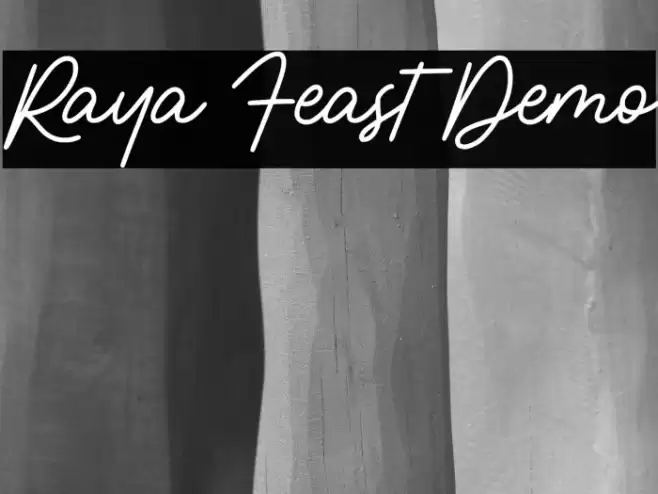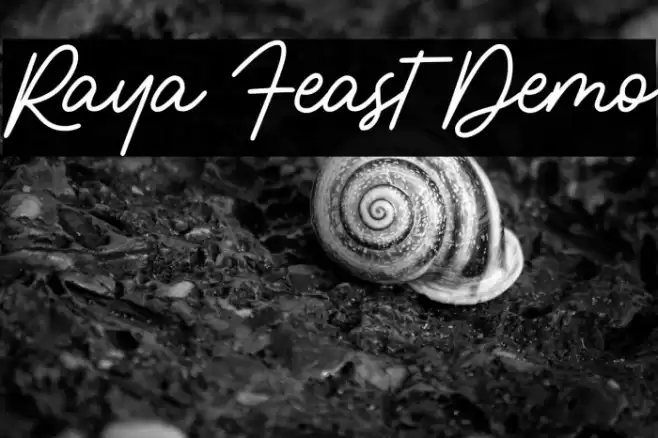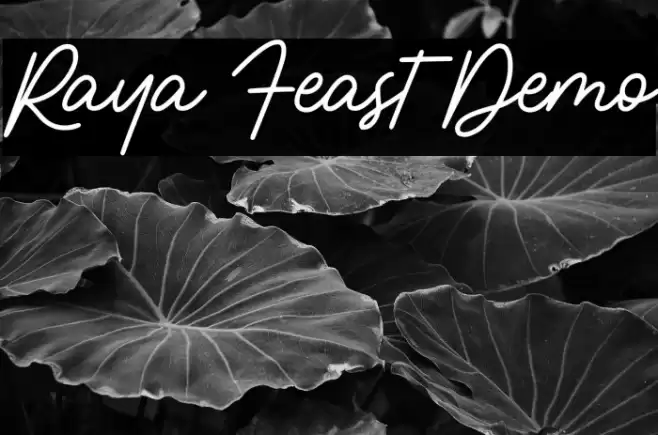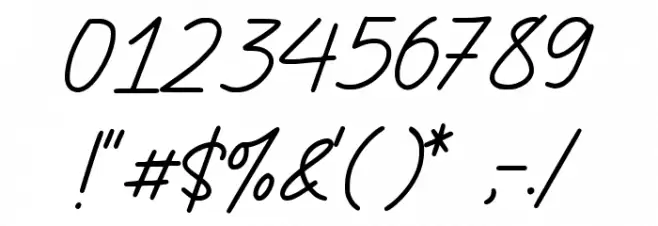
Raya Feast Demo Font
Raya Feast Demo Description
This font exudes a casual and elegant handwritten style, characterized by its fluid and connected letterforms. The strokes are smooth and consistent, giving it a natural and personal touch. The uppercase letters maintain a uniform height, while the lowercase letters exhibit a slight slant, enhancing the script's dynamic appearance. The numerals are clear and legible, complementing the overall aesthetic. Special characters are thoughtfully designed to match the font's flowing style, making it versatile for various applications. The font's charm lies in its ability to convey a sense of warmth and approachability, making it suitable for both formal and informal contexts.
A fluid and elegant handwritten script with smooth, connected strokes from Regular fonts.
- Proposed Projects: Ideal for wedding invitations, greeting cards, personal branding, and social media graphics.
- Use Case: Logos, Headlines, Invitations